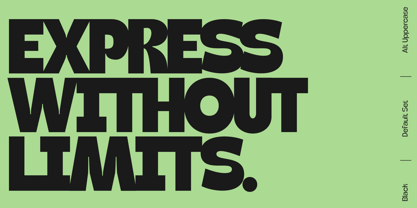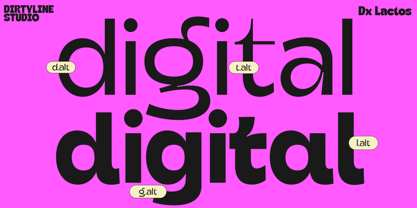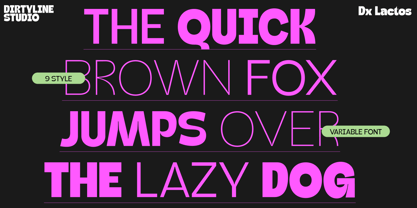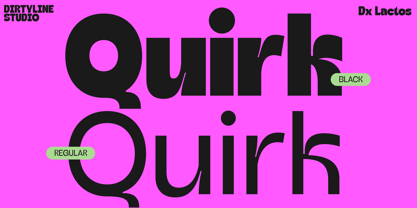
Dx Lactos Vol 02
by Dirtyline Studio
The Dx Lactos Vol 02 Font Family was designed by Hendra Maulia and published by Dirtyline Studio. Dx Lactos Vol 02 contains 10 styles and family package options. More about this family
Introducing Dx Lactos, a boundary-pushing display font that blends bold personality with exceptional flexibility. With its variable weight range from Thin to Black, Dx Lactos adapts effortlessly to diverse design needs—from sharp, minimal titles to striking, heavy headlines. Its quirky curves and confident structure bring a sense of fun and boldness, making it perfect for entertainment branding, streaming visuals, and pop-culture-inspired campaigns.
Dx Lactos thrives in expressive environments—ideal for movie posters, games, series promotions, or dynamic editorial spreads. The full spectrum of weights allows designers to fine-tune visual hierarchy and tone, ensuring each application stands out with precision and flair.